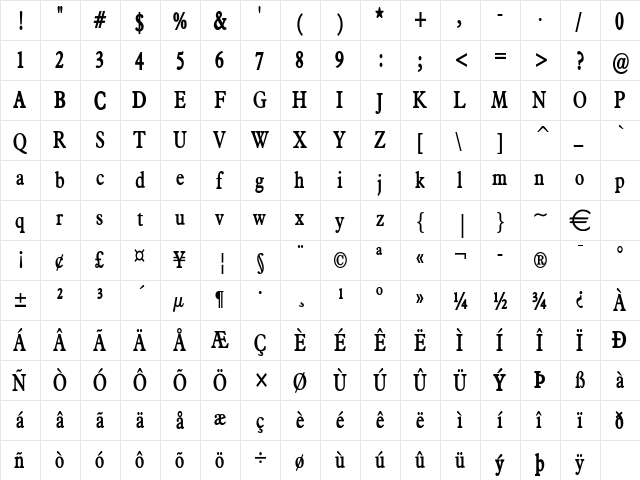
NadineThin Bold Font Preview
NadineThin Bold
NadineThin Bold Font Details
Design Context for NadineThin Typeface
NadineThin takes a measured approach to typography — its balanced proportions and neutral character make it a reliable workhorse for both digital and print work. Its bold stroke weight gives it real presence on the page.